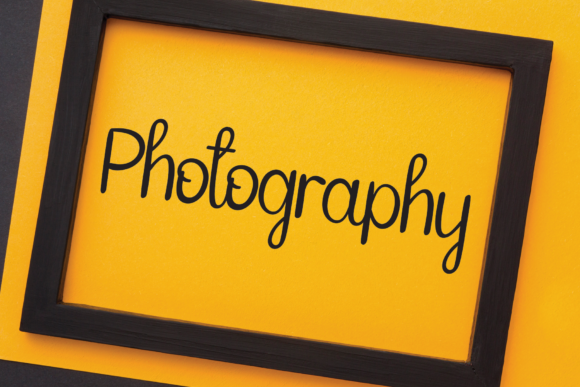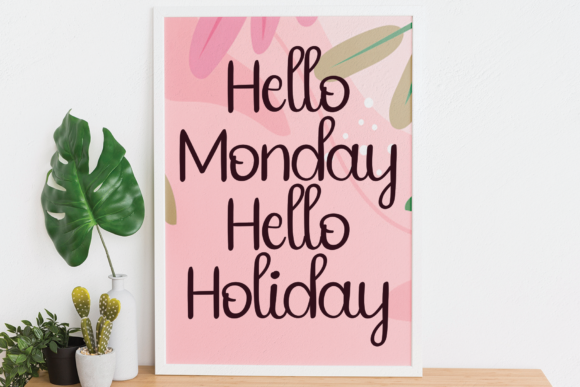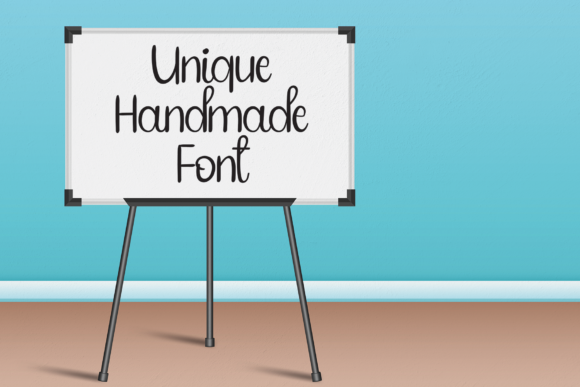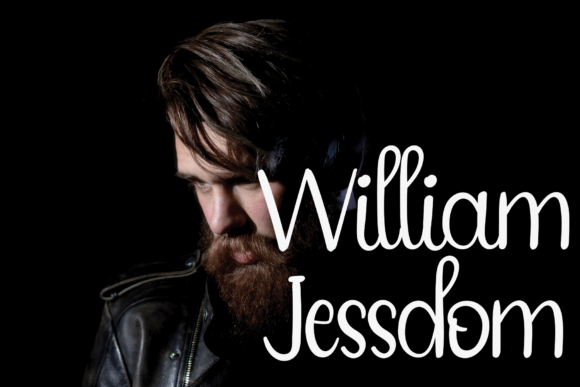
The Goodnight Font: A Stylish and Elegant Script for Your Designs
Have you ever been in the middle of working on a design project, and suddenly, you’re stuck on finding the perfect font? I recall a particularly frustrating experience while designing a wedding invitation for a client. The invitation needed to convey a sense of luxury, romance, and whimsy, but no matter which font I chose, it just didn’t feel right. That’s when I discovered the Goodnight font, a stylish and incredibly elegant script font that has since become a staple in my design toolkit.
An Honest Review of Goodnight Font
The Goodnight font has won my heart with its beautiful, flowing script and versatility. Here’s what I love about it:
- ✨ Elegant and sophisticated: Goodnight adds a touch of luxury to any design.
- ✅ Highly legible: Despite its script nature, Goodnight is surprisingly easy to read, even at smaller font sizes.
- 💕 Versatile: Use it for wedding invitations, thank you cards, quotes, greeting cards, logos, business cards, and more.
Of course, no font is perfect, and Goodnight has a few minor quirks:
- 🤔 Limited use in very formal or traditional designs: Goodnight’s script style might not be suitable for more formal projects, like academic papers or corporate reports.
- ⚠️ May require manual kerning: As with many script fonts, you might need to adjust the kerning to achieve optimal spacing between letters.
One of the standout features of Goodnight is its support for OpenType features, glyphs, and stylistic alternates. These features allow you to customize your text and add unique touches to your designs. For example, you can use:
- Ligatures: Combine letters like “fi” or “fl” for a more elegant look.
- Swashes: Add decorative flourishes to your text.
- Stylistic alternates: Switch between different versions of letters or numbers.
The Story Behind Goodnight Font
The Goodnight font was designed with the intention of creating a beautiful, elegant script that could be used for a wide range of design projects. Inspired by classic calligraphy and modern digital design, Goodnight’s creator aimed to craft a font that would add a touch of sophistication and whimsy to any design.
| What is the Goodnight font best used for? | The Goodnight font is versatile and can be used for wedding invitations, thank you cards, quotes, greeting cards, logos, business cards, and more. |
| Is Goodnight suitable for body text? | While Goodnight is beautiful, it’s primarily designed for display text. For body text, you may want to choose a more traditional, legible font. |
| Does Goodnight support OpenType features? | Yes, Goodnight supports OpenType features, including ligatures, swashes, and stylistic alternates. |